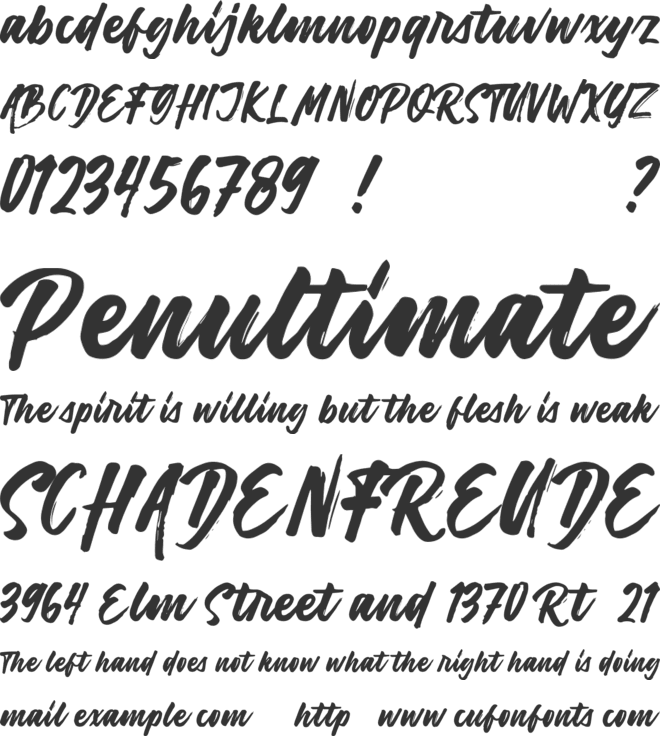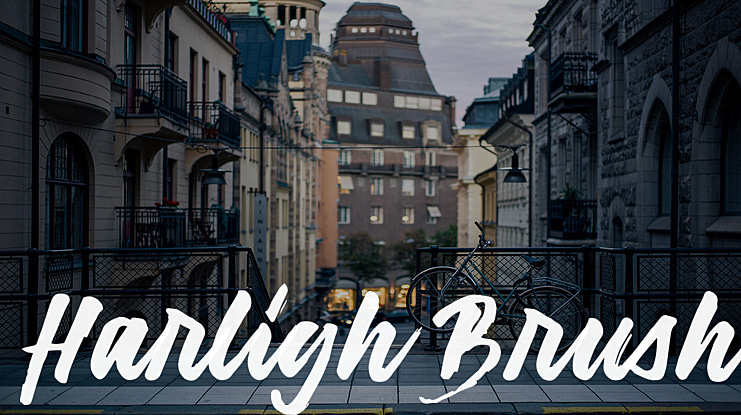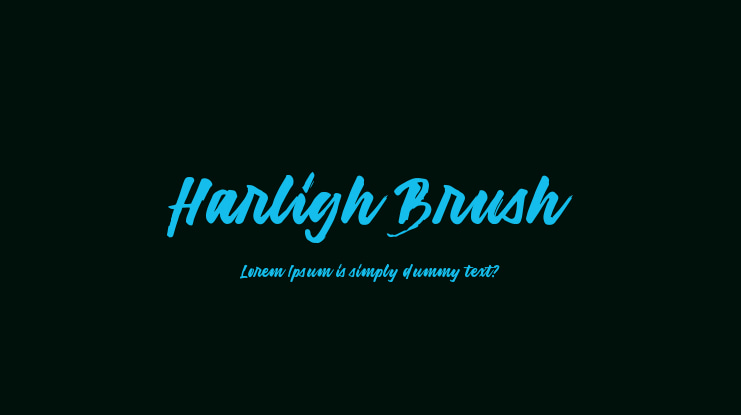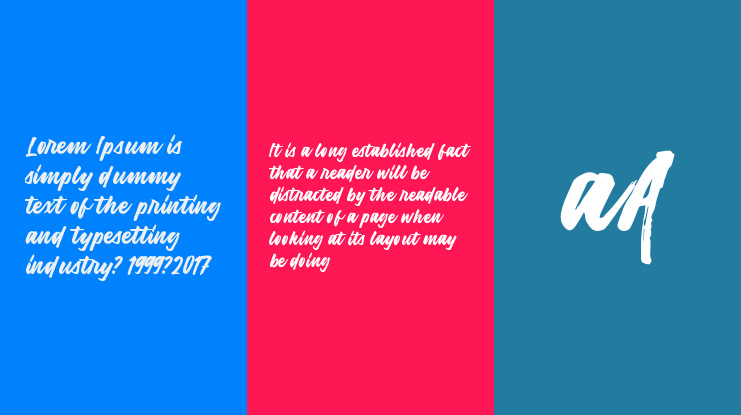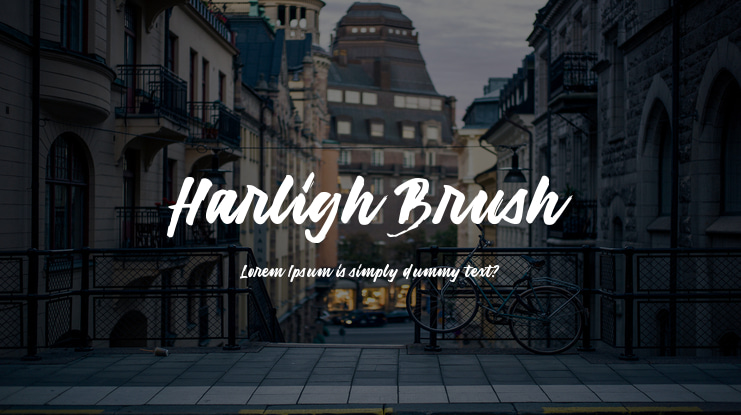
Harligh Brush Font
Harligh Brush Font. This font is made with a brush so it looks natural like handmade. This font is the best used for your design projects such as poster designs, album music, Calender, website headers, make some letter quotes, t-shirt designs, etc